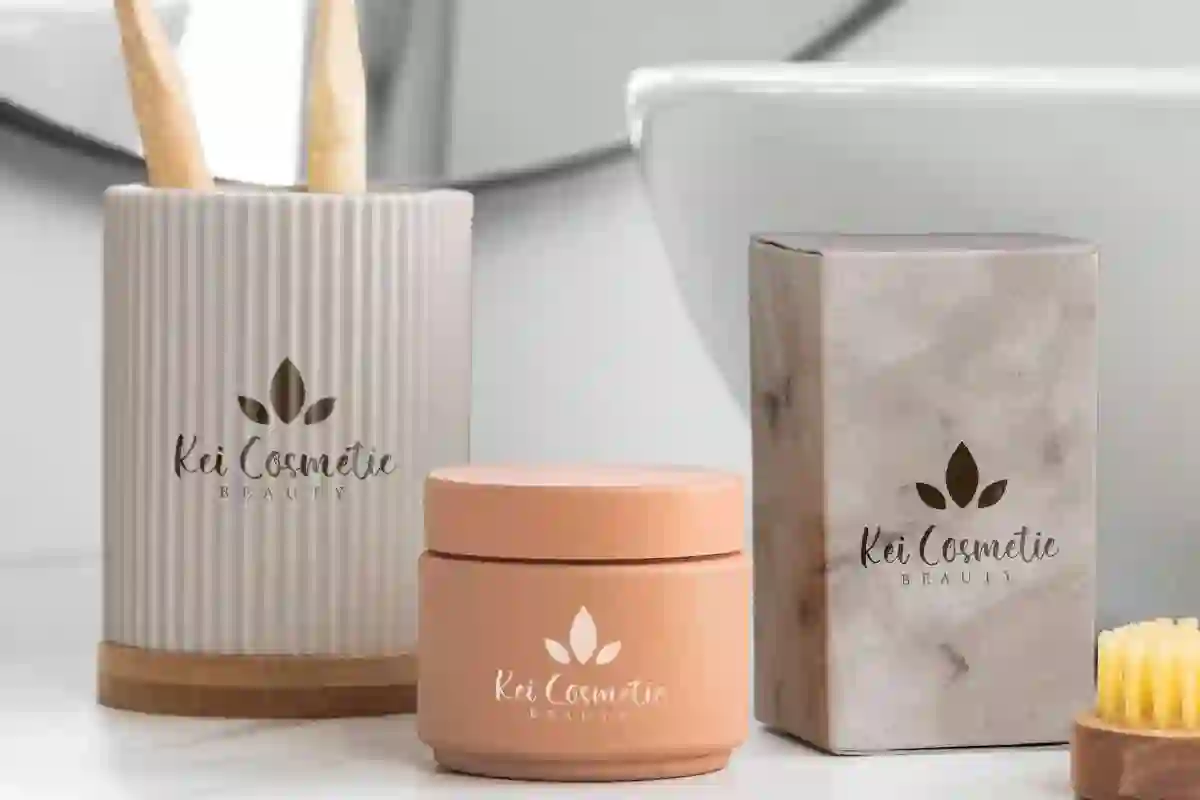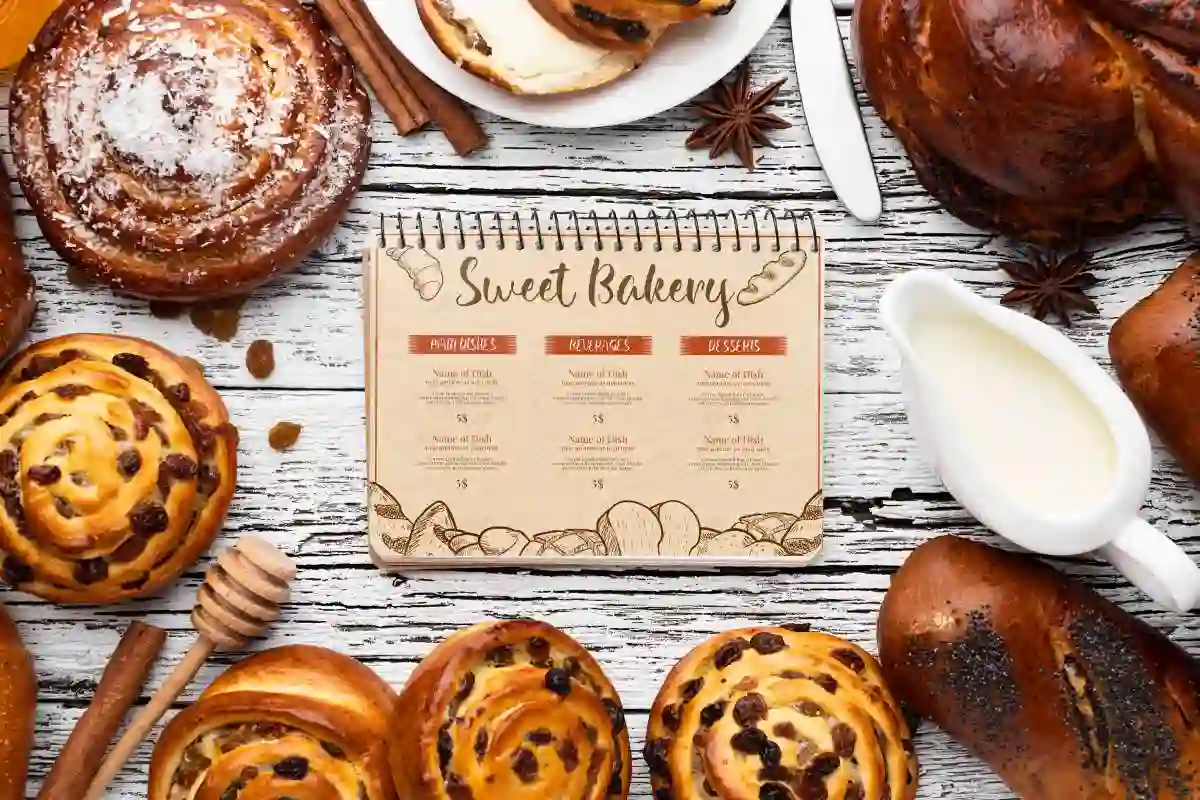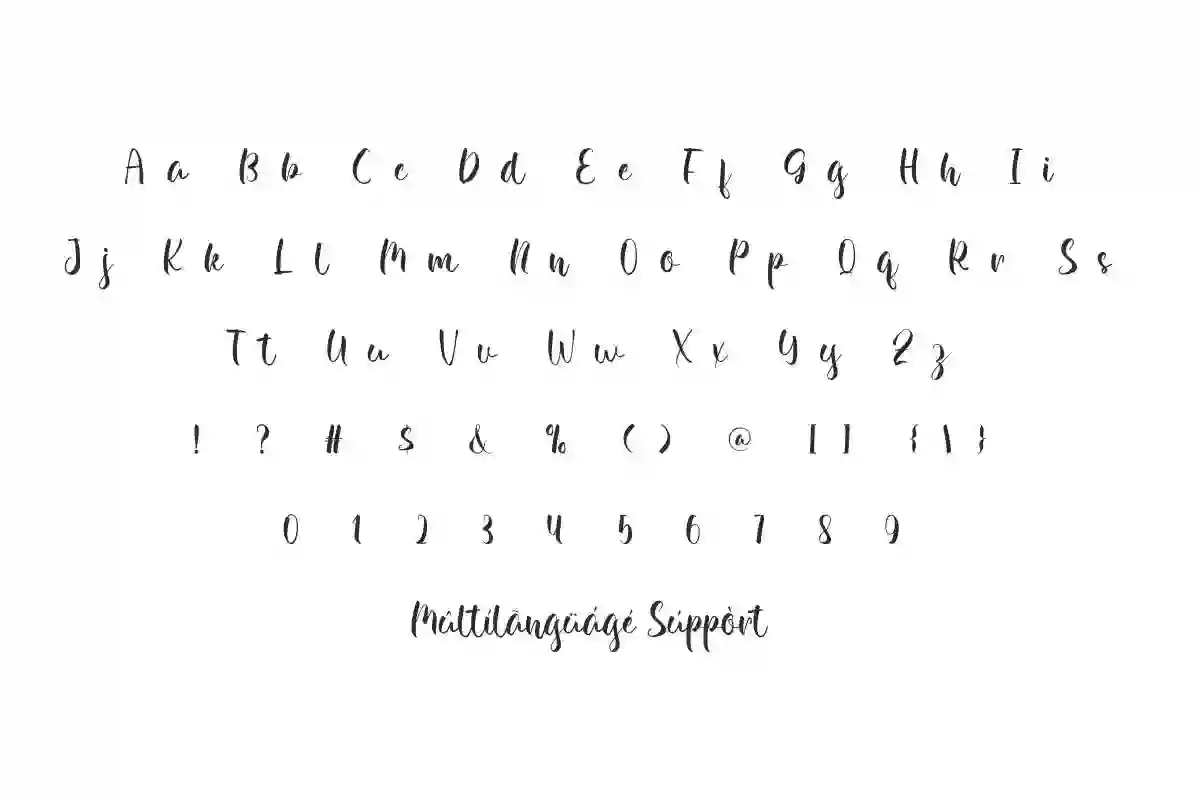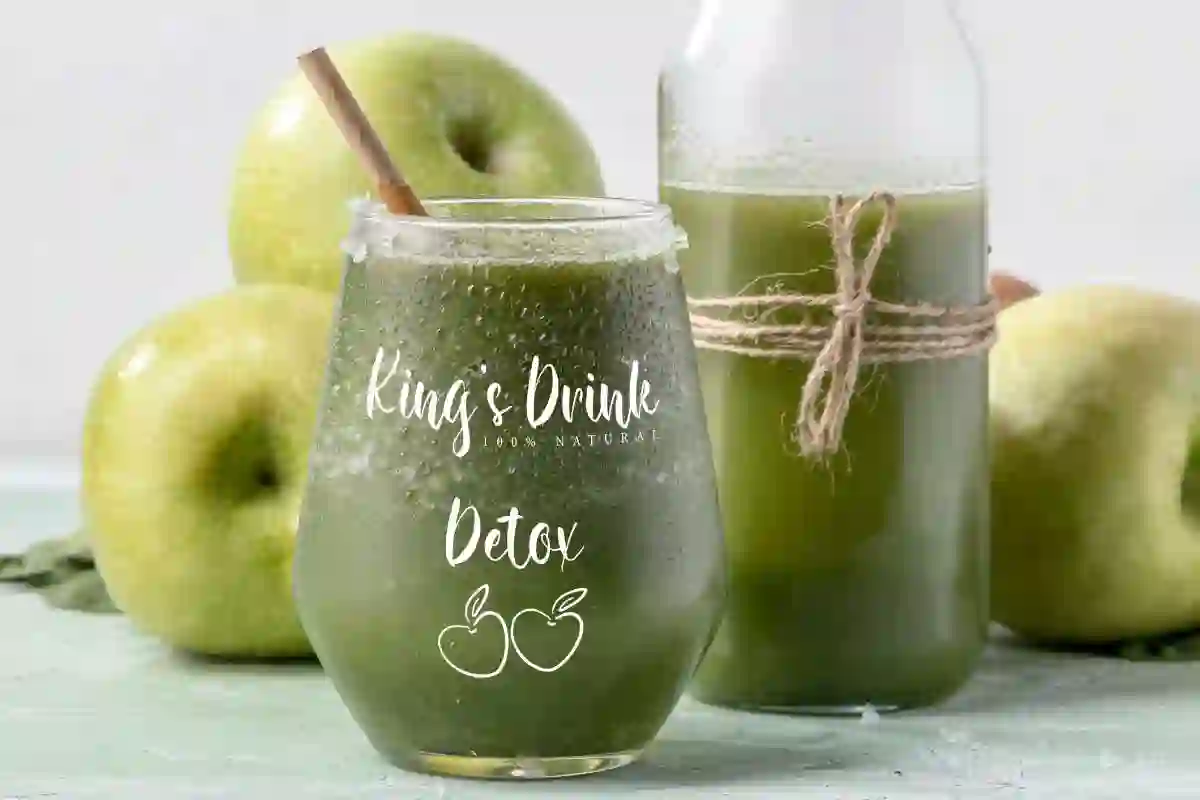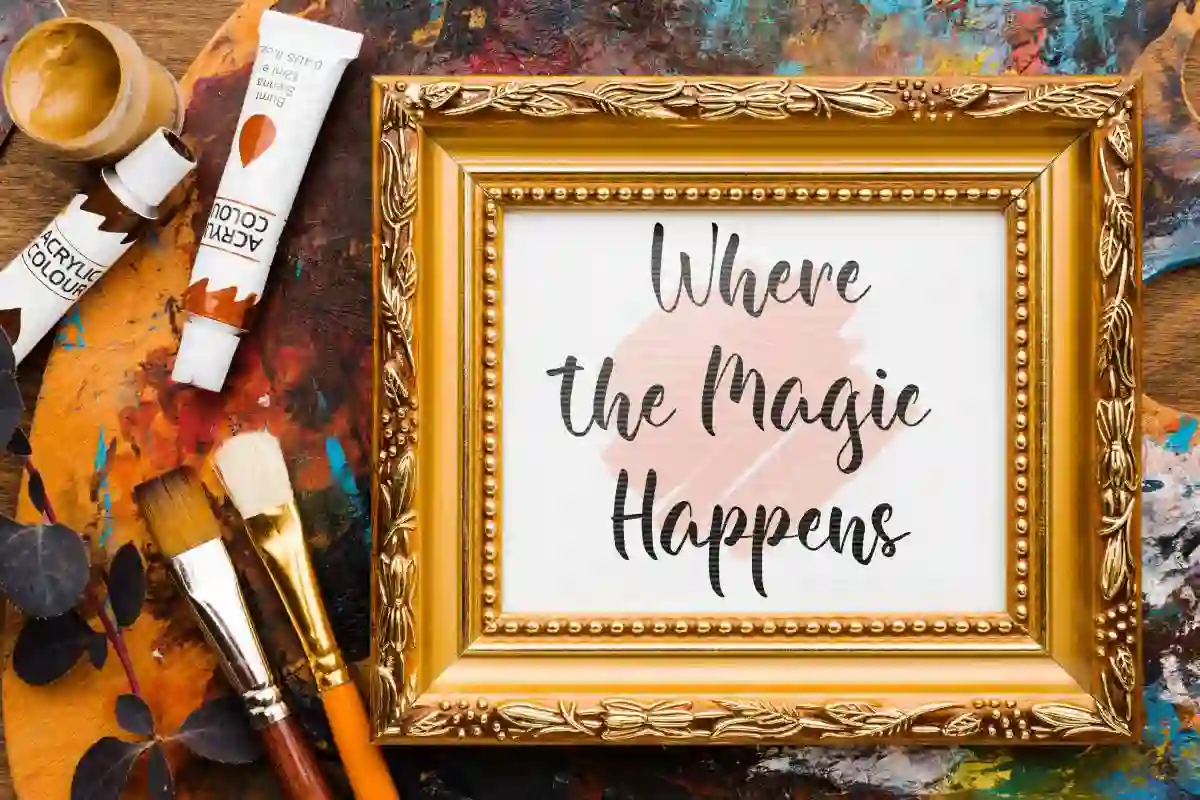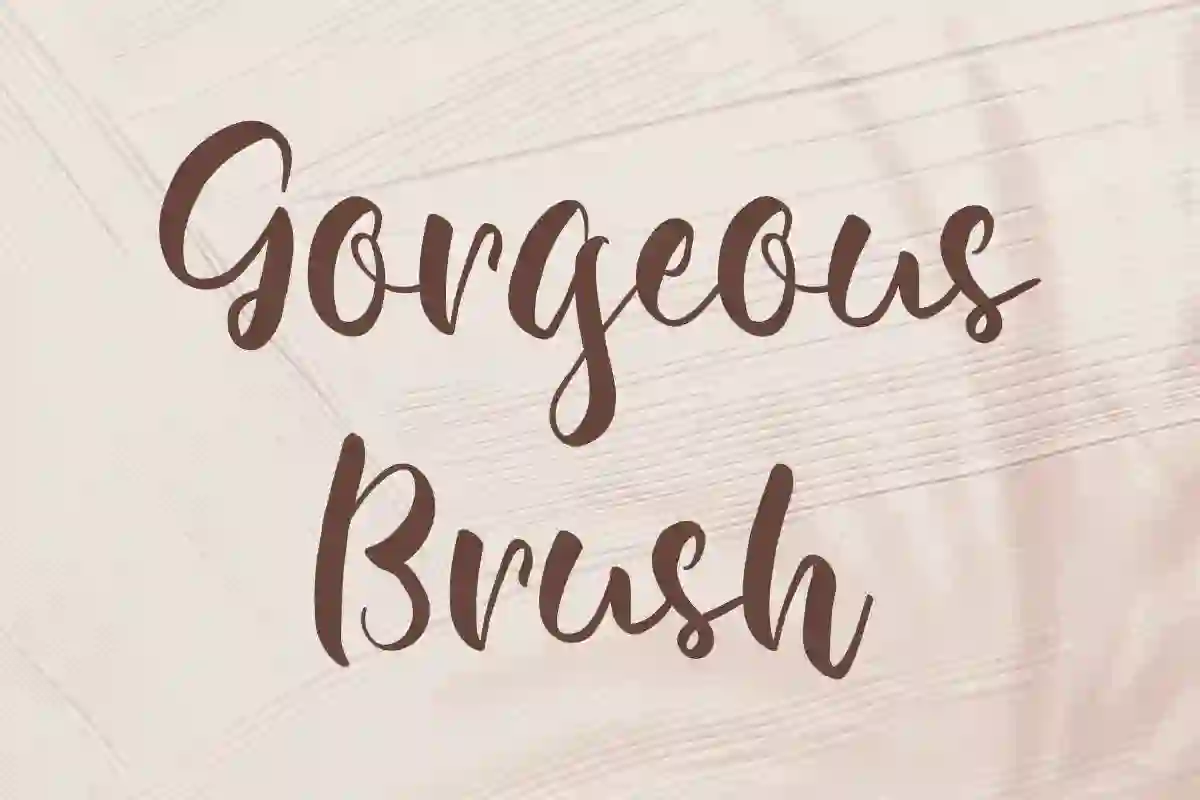
Gorgeous Brush Font is a calligraphic brush font script that will be awesome for many projects including brandings, promotions, social media campaign etc
Gorgeous Brush Font is a calligraphy script font with an amazing balance of thick and thin brushes. This font will give your design a stylish look, such as brand logo, calendar, label, menu, quote, screen print, stationery, sticker, title, watermark, and much more!
Gorgeous Brush Font comes with a full set of Uppercase and Lowercase Basic Characters, Number, Punctuation, Symbol. This font has a dominant thickness, the overall shape of the letters is stunning, this will add aesthetics to the font and make it gorgeous as the name suggests. Use this for your business industry such as, artist, beauty product, handicraft, publishing, restaurant, etc.